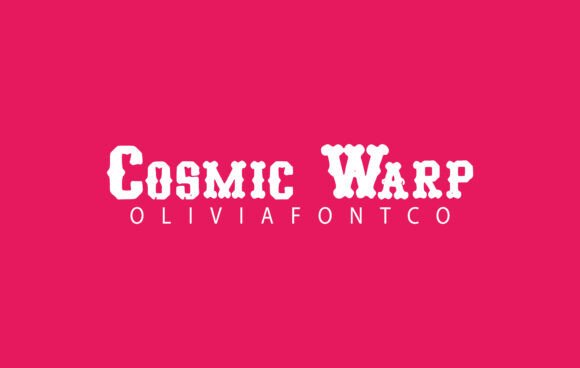
Cosmic Warp: Authentic Slab Serif Font Download
Introduction to Cosmic Warp Typography
Finding a typeface that balances structural integrity with genuine emotion is a challenge for many designers, but Cosmic Warp bridges this gap effortlessly. This unique typeface offers an authentic handwritten aesthetic wrapped in the sturdy framework of a slab serif, making it a standout choice for creative professionals. If you are searching for a Cosmic Warp free download to test its capabilities in your current mockups, you will discover a versatile tool that elevates visual storytelling. Unlike standard geometric options, this font carries a romantic touch that feels personal yet polished.
As a distinct entry in the Slab Serif category, Cosmic Warp avoids the rigidity often associated with blocky serifs. Instead, it introduces organic curves and variable stroke widths that mimic natural penmanship. Whether you are looking to download Cosmic Warp font free for a personal passion project or evaluating it for a client pitch, understanding its nuanced design is essential. It serves as a sophisticated alternative to typical display fonts, offering readability without sacrificing artistic flair. This duality makes it a high-value asset for modern typography needs.
Design and Style Analysis
The visual personality of Cosmic Warp is defined by its ability to merge nostalgia with contemporary design trends. The letterforms exhibit a confident weight that commands attention in headlines while maintaining enough delicacy for shorter body copy. When analyzing the best Slab Serif fonts for use case scenarios involving emotional connection, this typeface consistently outperforms stiffer competitors. Its spacing is meticulously kerned to ensure that the handwritten elements do not feel cluttered, preserving a clean silhouette even at larger sizes.
Organic Letterforms and Weight
The strokes in Cosmic Warp vary subtly, replicating the pressure changes of a real writing instrument. This characteristic distinguishes it from digital-first fonts that often appear sterile. As a premium Slab Serif font, it retains the anchoring serifs necessary for legibility while softening the edges to evoke warmth. This balance is critical for designers who need authority without aggression.
Comparison to Traditional Slabs
When conducting a Cosmic Warp vs similar font analysis, the difference lies in its humanist approach. Traditional slabs like Rockwell or Courier are mechanical and monospaced, whereas Cosmic Warp embraces proportional spacing and fluid terminals. This makes it far more suitable for lifestyle branding and editorial layouts where mood is just as important as message delivery.
Best Uses for Cosmic Warp in Design
Versatility is the hallmark of any professional Fonts font, and Cosmic Warp excels across multiple mediums. Its unique hybrid style allows it to function as both a display face and a supportive text element. Below are specific applications where this typeface shines brightest.
Cosmic Warp for Logo Design and Branding
Creating a memorable brand identity requires typography that feels proprietary and distinct. Cosmic Warp for logo design provides an instant sense of heritage and craftsmanship. Because the letterforms are distinctive yet legible, they work exceptionally well for boutique brands, artisanal products, and creative agencies. When used for Cosmic Warp for branding, it signals authenticity, helping companies connect with audiences on an emotional level rather than a purely transactional one.
Cosmic Warp for Wedding Invitations and Stationery
The romantic undertones of this font make it an ideal candidate for matrimonial typography. Cosmic Warp for wedding invitations/cards/typography offers a refreshing alternative to overused scripts. It provides the elegance required for formal events while adding a modern, relaxed vibe that appeals to contemporary couples. It pairs beautifully with textured paper stocks and minimalist layout designs.
Cosmic Warp for Posters and Social Media Graphics
In the fast-scrolling environment of digital media, grabbing attention quickly is paramount. Cosmic Warp for posters/social media/packaging delivers high impact through its bold, expressive shapes. It works particularly well in Instagram carousels, Pinterest pins, and event flyers where the typography must convey energy and personality instantly. For packaging, it adds a tactile quality that suggests premium care and attention to detail.
Font Pairing and Combinations
Knowing what fonts pair well with Cosmic Warp is crucial for creating balanced layouts. Because this typeface has significant character, it generally performs best when anchored by simpler companions. Effective Cosmic Warp font pairing relies on contrast; let the slab serif be the star while supporting typefaces handle the heavy lifting of information density.
These best font combinations with Cosmic Warp ensure that your design remains accessible and visually harmonious across all touchpoints.